Font Style editor might work differently in 6 and 5?
Originally, I wanted to use custom text for repeat markers, such as “aller à ”, which meant both a bold font face, and SMUFL characters. So, I decided to create a Paragraph Style which would be based on the Bravura font, and the Bold appearance, and to attach this Paragraph Style to Repeat Markers in the projects for which it was appropriate. I
Attached is a very short snippet of such a project, from Dorico 5.
This project works without any userlibrary present, and without any helpful doricolib in the DefaultLibraryAddition folder. I would guess that all the necessary info is included in the project file?
I just downloaded and installed Dorico 6, I just tested a bunch of recent projects having some kind of unusual things in them, and did not fin any problem, apart of the original project for the snippet attahced. Dorico 6 raised the following error:
Looking into it, I found:
When initially created the Bravura Font Style displays like this
And the drop box does not contain any other item. But in Dorico 5, when I created the Paragraph Style:
Not only did it work, but after that, the Bravura Font Style displayed itself as:
And the drop box now contained the standard 4 canonic font styles.
Apparently in Dorico 6, this “magic” does not work any more, my existing projects are in error, and if I try to recreate the Paragraph Style from scratch in a new project, The Paragraph Style editor does not propose Bold at all, only:
Has something changed in Dorico 6? I used the term “magic” above because it seems mysterious that a Drop Box would change from 1 item to 4 only because the editor of a different object requests it. And it is difficult to understand why some Font Styles have 1 style and others 4. I though at a moment that they should all have only 1, but then, what would it mean to let the Paragraph Style pick its own? When you look at the FontStyleDefinitions in the Factory xml, their format is a little weird: A named Style(?), a Boolean flag for italic, another for underlined, a weight… This is not a good fit for the Dorico ideal of the 4 canonic styles. It would support the “A Font Style has only 1 style” theory. And if you duplicate the factory Bravura Font Style (regular), it automatically becomes a Bravura Font Style (Bold). All this is somewhat contradictory. Is it possible that what worked in Dorioc5 was due to a weakness, a loophole that has now be stopped in Dorico 6? That the way to go was to create the Bold variant of the Bravura Font Style and to attach the Paragraph Style to that? Or maybe in Dorico 5, more attributes of the Font Size could be edited than is now possible in Dorico 6? In that case, it might be a good idea to use the Dorico 6 strategy even for Projects still in Dorico 5?
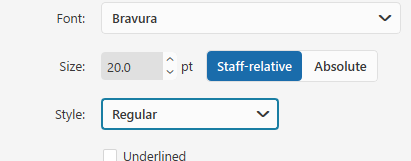Yes, sort of. I assume you’re on WIndows?
Windows traditionally presents you with 4 varieties of each font (regular, bold, italic, bold italic), even if those 4 varieties don’t actually exist. Bravura, for example, only has a regular style. In a case like this, if you told Windows that you wanted Bravura bold, Windows would “fake” the style by making the font heavier.
Dorico 6 now treats fonts in a more correct and cross-platform manner and will only let you choose font styles that actually exist (that is, that have a separate font file). So you are no longer able to make use of these “fake” fonts in Dorico projects.
Well, I suspected something like that, though I did not see it was Windows related. And I got confused anyway: I thought the Paragraph Style refered to a Dorico Font Style object, while it refers to a Font, period. I guess that actually Bravura is actually bold by nature (I now dig the bravure is italian for bold thing :-)!). so in my specific case I can use Bavura such as it is.
Yet in a way it would seem more natural to say that Bravura has only one style, which is Bold?
And for other fonts, I would not agree that Windows behavior is incorrect in creating “fake” fonts when they do not exist, for me it is rather a bonus. I guess Dorico 6 change motivation is that MacOs lacks this capacity, so equality between Windows users and Mac users led to lose the Windows bonus. But I did not needed it here, so it is indeed solved.
This doesen’t look as simple as I thought: When I fix the Paragtaph Style to refer to Bravura Regular, the Bold appearance is lost!
What was
oldmarker
is now
newmarker
At least it is degraded: maybe the new one is not totally regular, but not totally bold either. Is it what is called demiBold?
Bravura is a “Regular” weight, as far as font management is concerned. There is no Bold style. (Of course, it is a ‘strong’ design…)
I would be a little bit concerned by the fact there’s a space lacking between la and Fin, more than about the weight of the font :wink:
:slight_smile: : I would not. A typo in text is easily solved, apparently weight problems are not!
Ok, I get it. So, if I want a font with an actual bold style and capable of displaying some SMUFL characters, what are good candidates (if any)?
I’m not sure that any SMuFL music fonts come with Bold styles – in addition to Regular style font files.
@NorFont.com produces several music fonts that have light and heavy versions, though I don’t think they are in “style families”.
But: if you just want a Bravura Text symbol within a line of Bold text, that should be perfectly possible as things are. Set the text in the bold style of the text font you want, and then add the Music Symbol in the middle, using the Music Symbol Character Style.
I know, but is it possible in all types of text items? I want to have that in a Repeat Marker Custom Text, and Ithought i was not possible?
Yeah :slight_smile: I remember that too,
…especially when you zoom out the generated pdf, you’ll notice that ;-)… now I am not sure if Windows 11 is still does that or not.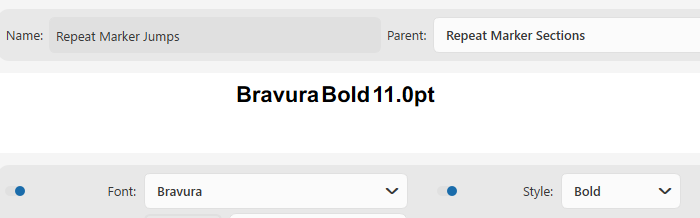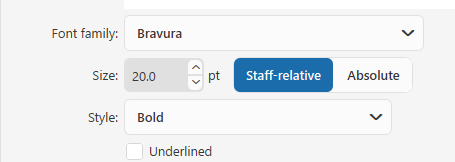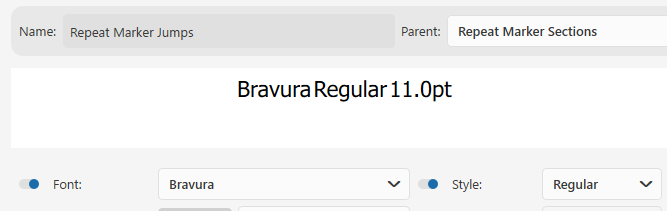